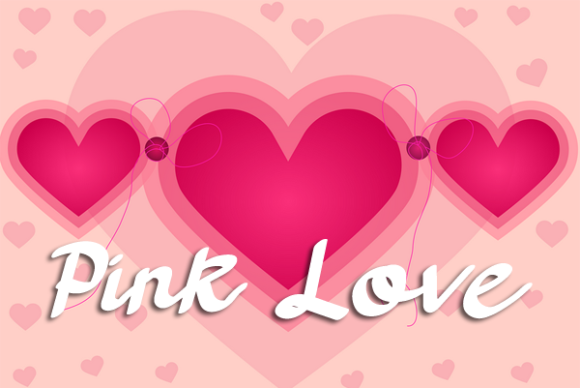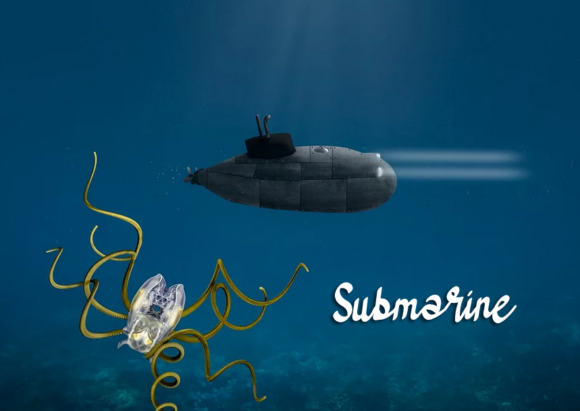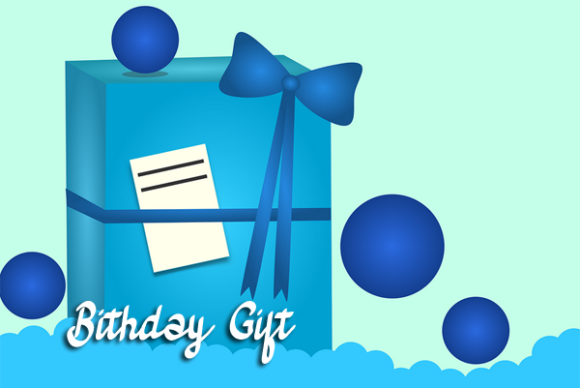
Samantha Font
About Samantha Font
Samantha is a whimsical script font with a relaxed theme, featuring a lovely style. No matter the topic, this font will be an incredible asset to your fonts’ library, as it has the potential to elevate any creation.